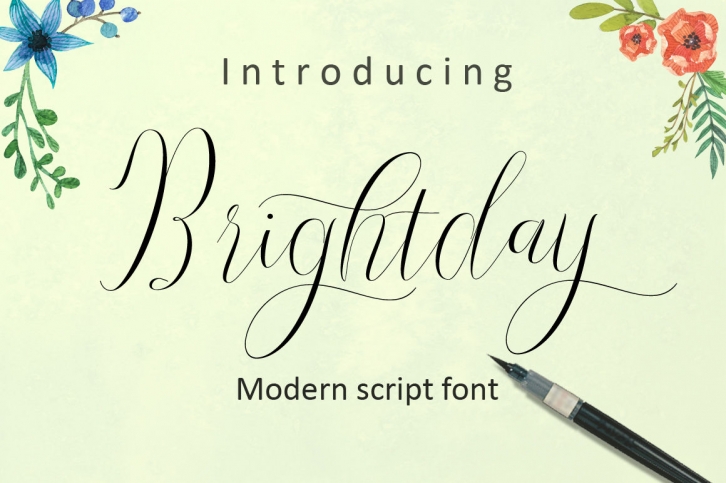
Brightday is modern script font, every single letters have been carefully crafted to make your text looks beautiful. With modern script style this font will perfect for many different project ex: quotes, blog header, poster, wedding, branding, logo, fashion, apparel, letter, invitation, stationery, etc.
Brightday come with 608 more glyphs. The alternative characters were divided into several Open Type features such as Stylistic Sets, Stylistic Alternates and Ligature. The Open Type features can be accessed by using Open Type savvy programs such as Adobe Illustrator, Adobe InDesign, Adobe Photoshop Corel Draw X version, And Microsoft Word And this Font has given PUA unicode (specially coded fonts). so that all the alternate characters can easily be accessed in full by a craftsman or designer.
- Initial Alternates
- Terminal Alternates
- Standard ligatures
- Multiple Language
- Stylistic sets
- Basic Latin A-Z and a-z
- PUA Encode